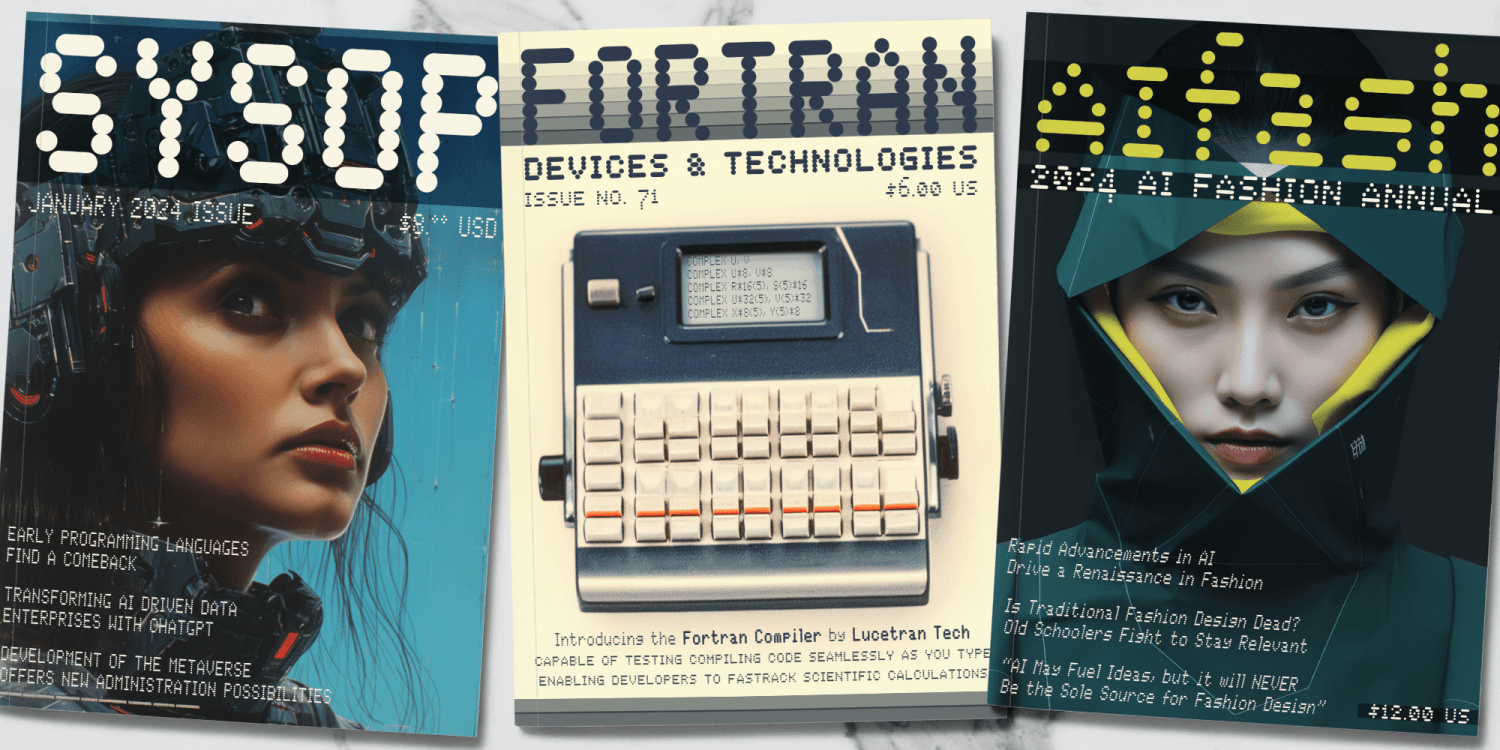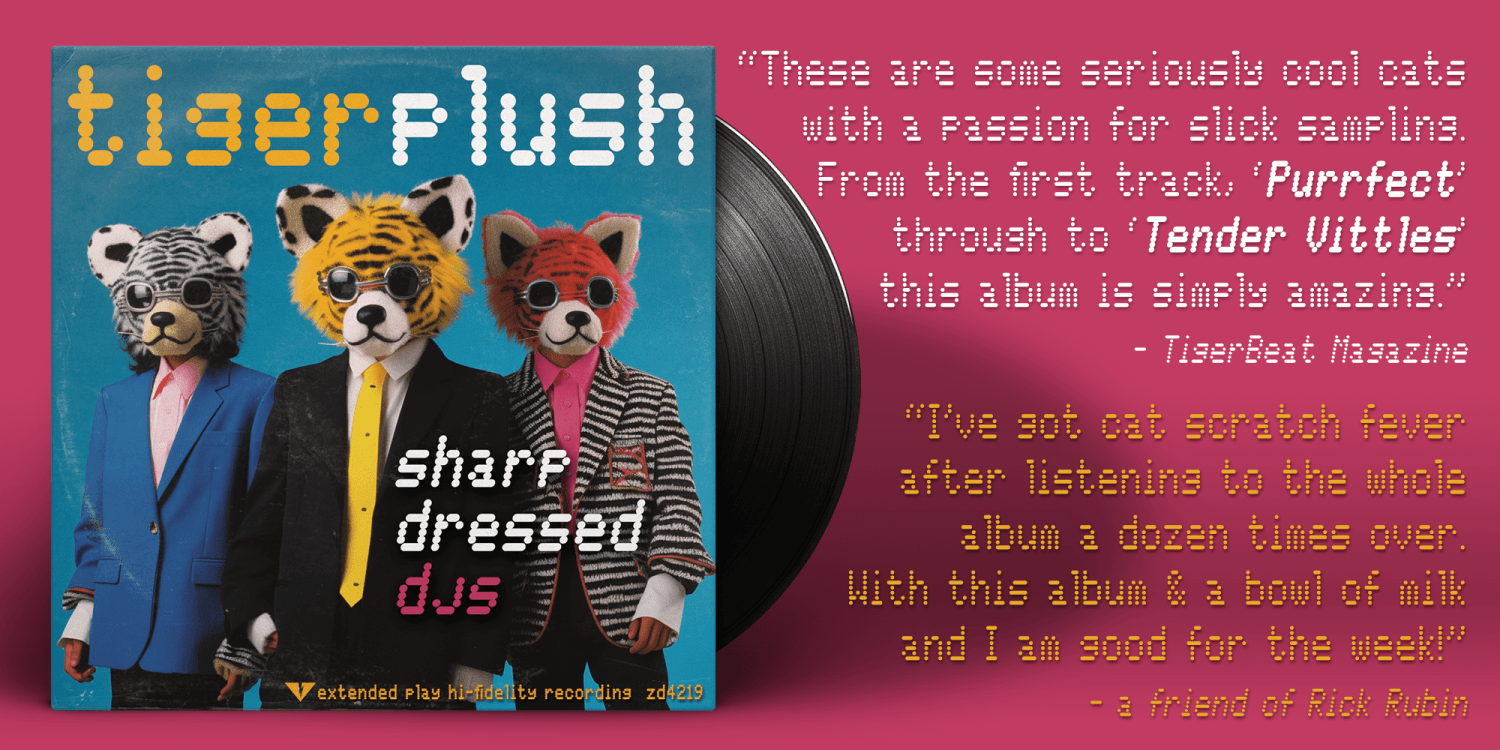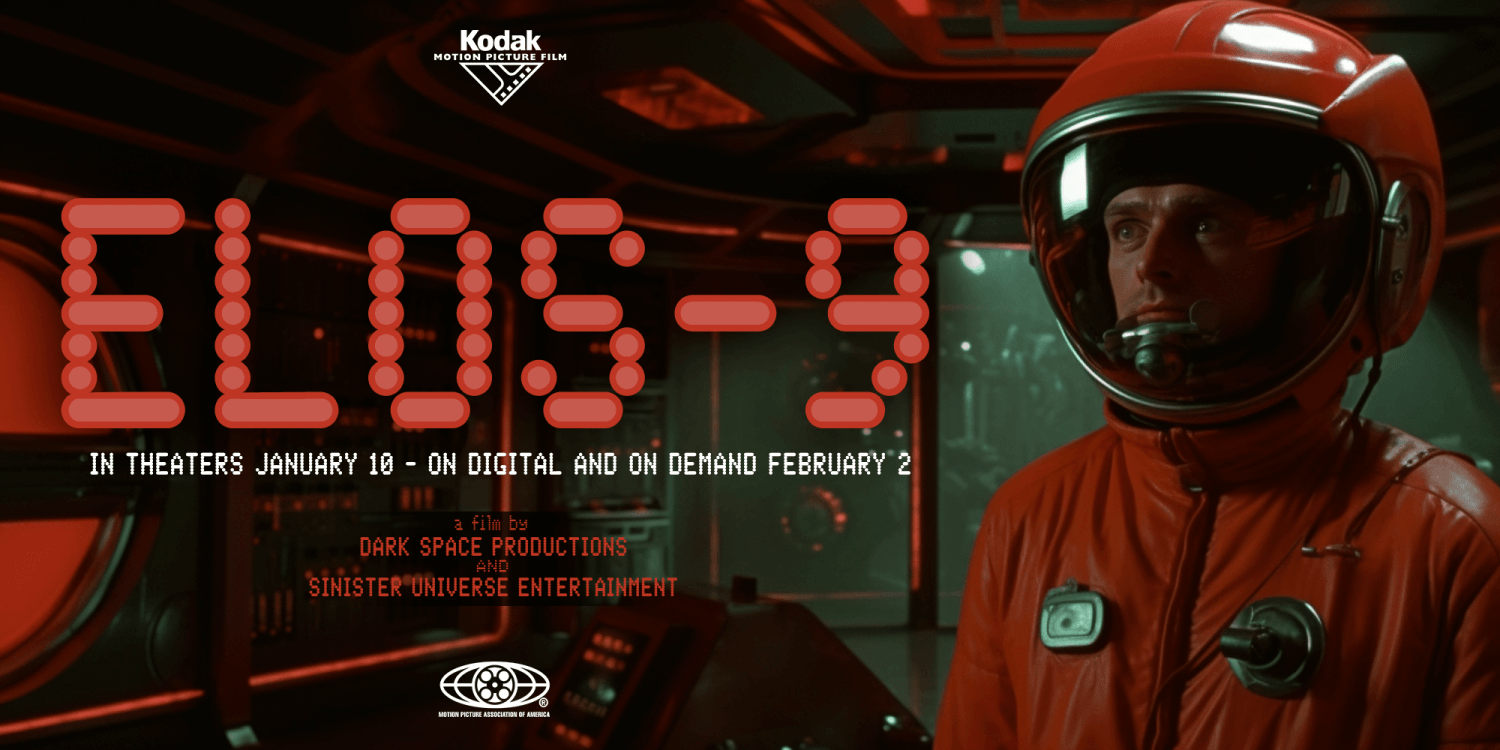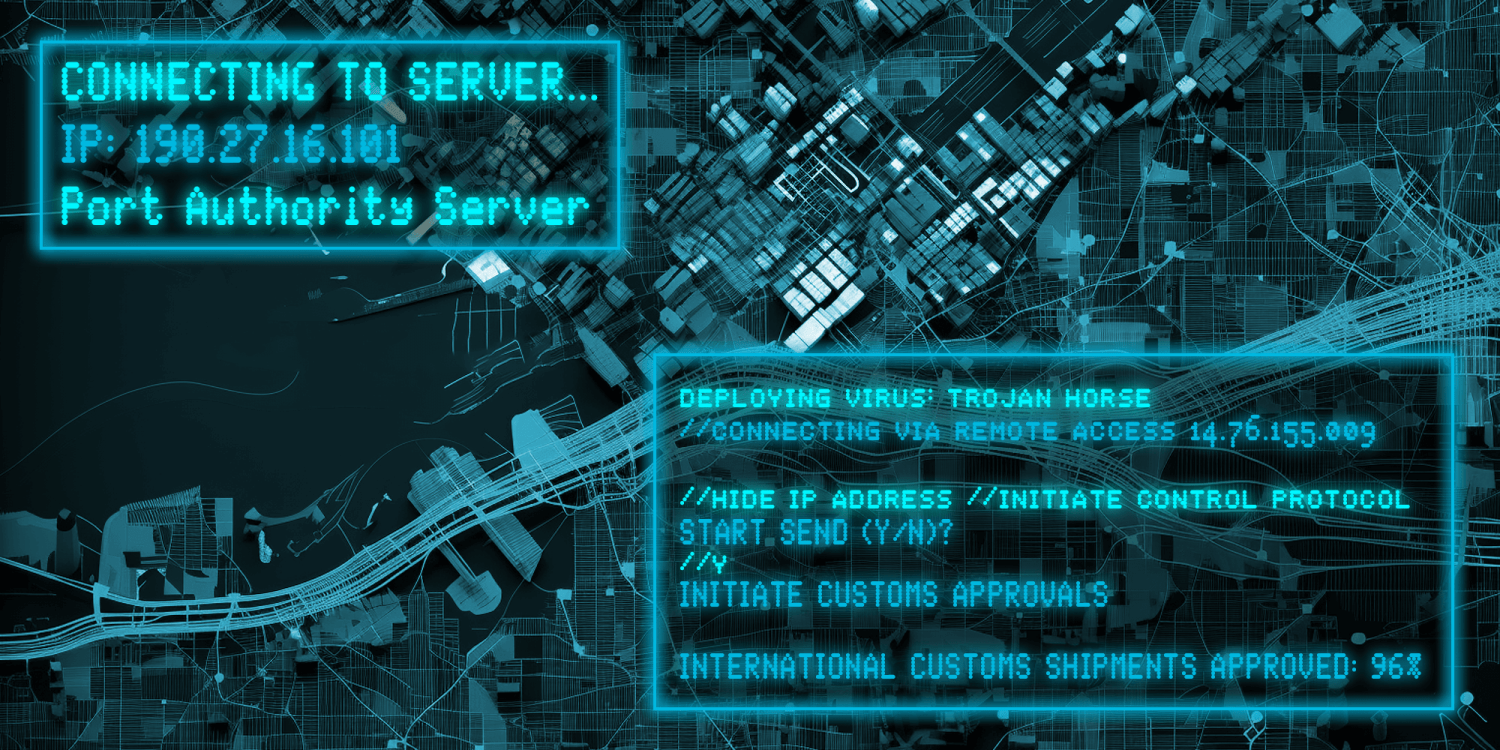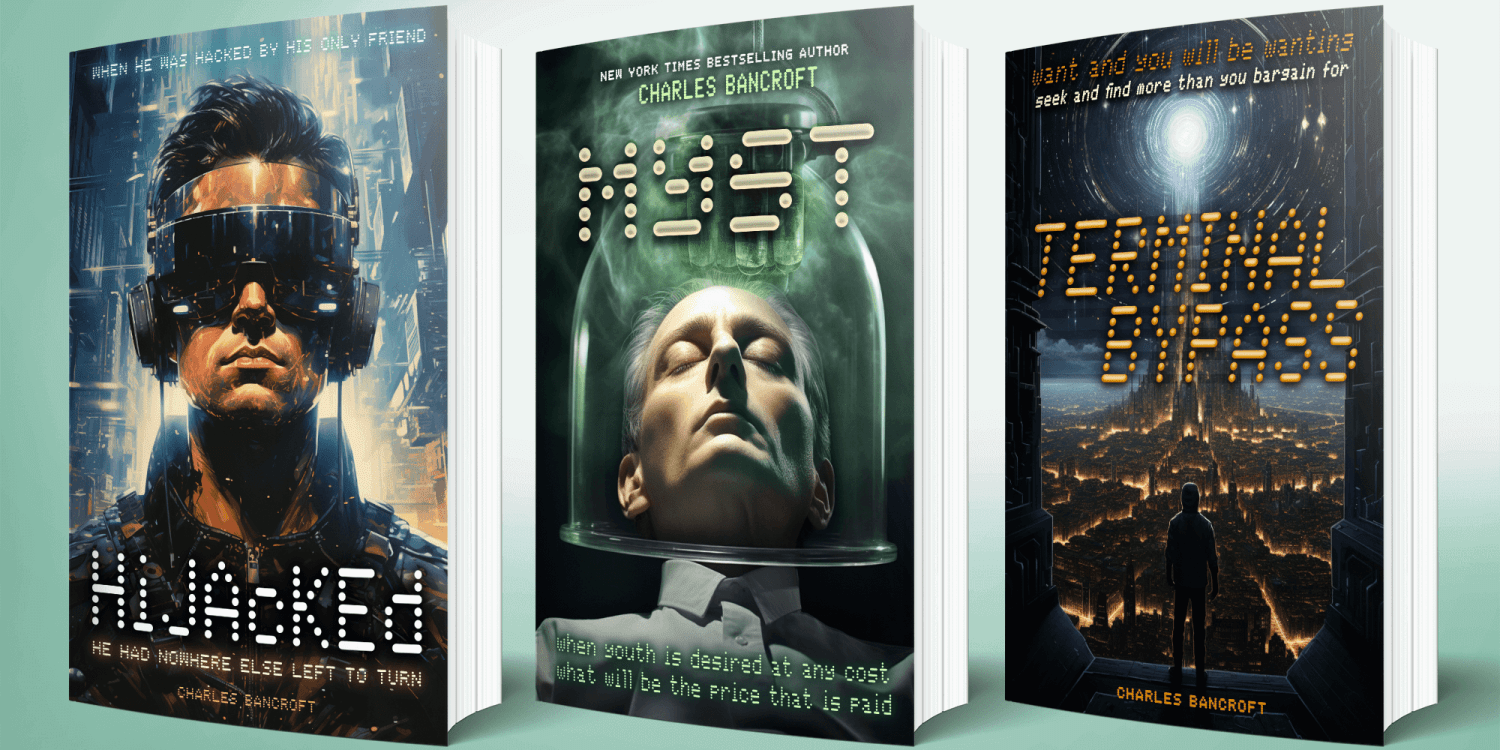
Data Error Horiz AOE Pro
About Data Error Horiz AOE Pro
The Data Error Horiz AOE Pro family is a spinoff of my Data Error AOE Pro family. Quite simply, it takes on a slightly different feel than the original pin matrix grid by stroking across all horizontal glyph lines. The horizontal lines add more readability…